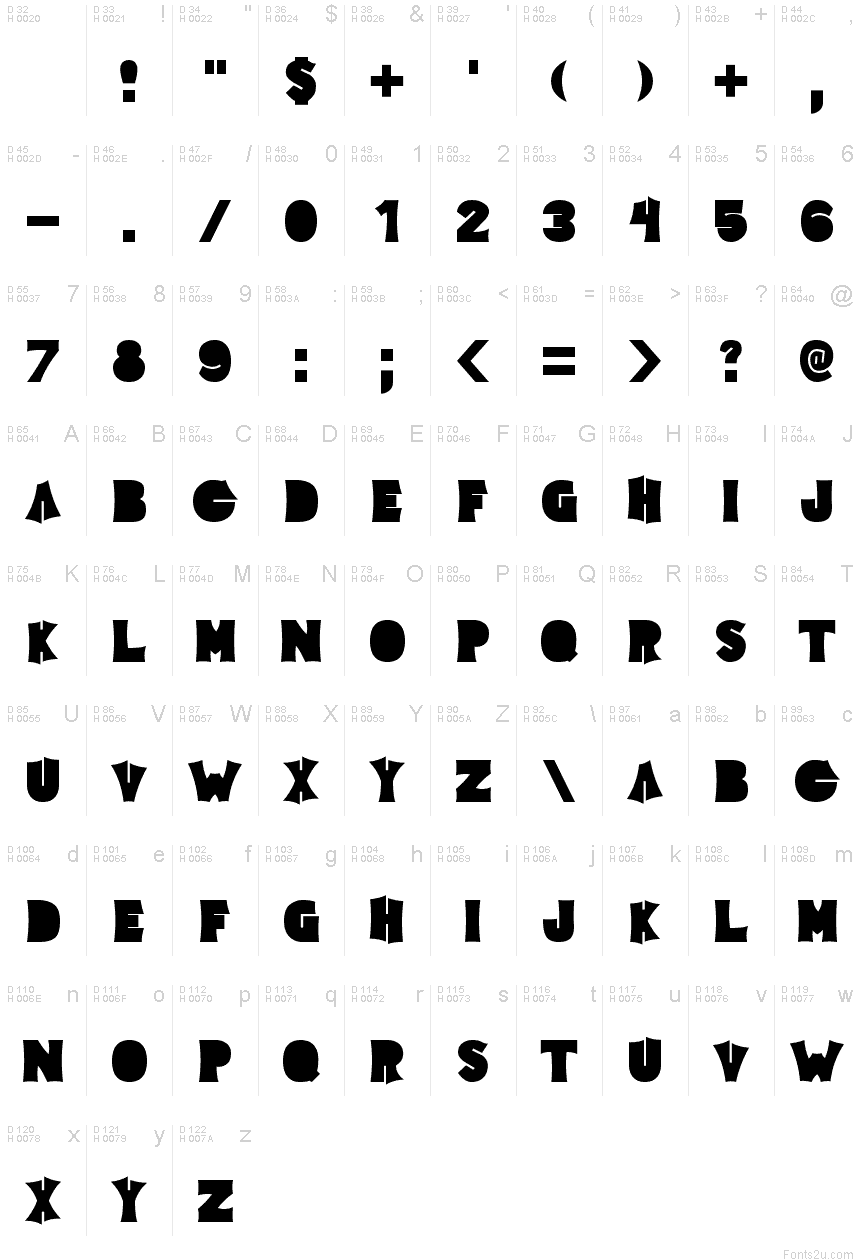
Electric Pickle Bold
Electric Pickle Bold font by Matthew Welch is a free comic typeface that hits like a loud guitar chord. Heavy, inky shapes wobble just enough to feel wild, with sliced horizontal cuts through the letters that add a sharp, electric jolt. The tight, blocky forms keep words compact and punchy, so short phrases read like shouted slogans rather than calm labels.
Using Electric Pickle Bold, you can crank up the energy on gig posters, indie zines, skate or band logos, horror-comedy titles, party flyers, and bold packaging concepts. This free font works best oversized, letting its chunky distortions really show, and pairs well with a plain geometric sans from the Electric Pickle family or your system fonts for body copy.